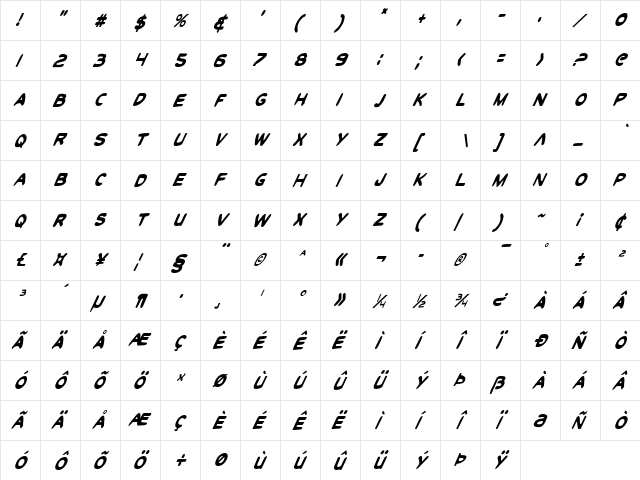
Toon Town Industrial Cond Ital
Design Context for Toon Town Industrial Cond Ital Typeface
Toon Town Industrial Cond Ital is a composed and adaptable typeface that performs quietly and consistently across a wide range of design contexts. Its narrow stance lets it pack a punch even in space-constrained designs.